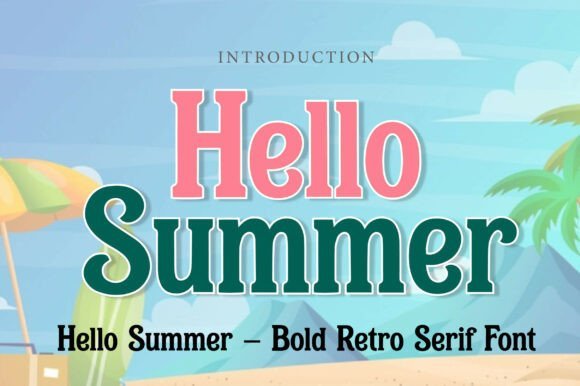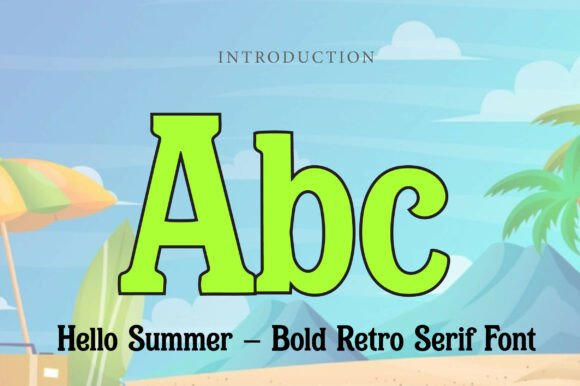
The Perfect Blend of Nostalgia and Vacation Vibes
As I scroll through my social media feeds during the summer months, I’m instantly transported back to a time when the sun-kissed beaches and laid-back vibes were the epitome of freedom. It’s during these moments that I crave the essence of a bygone era – the charm of vintage vacation posters, the carefree spirit of 1970s surf culture, and the warmth of a seaside getaway. And that’s exactly what the Hello Summer Font embodies.
This heavy display serif font is designed to evoke the feeling of a summer vacation, with thick, blocky letterforms and rounded slab serifs that scream ‘beachy vibes.’ Whether you’re designing a swimwear brand, creating invitations for a beach party, or crafting social media headers that scream ‘vacation mode,’ the Hello Summer Font is the perfect choice. For designers, it’s a valuable tool that can add a touch of nostalgia and whimsy to any project, making it a must-have for anyone looking to create a lasting impression.
Hello Summer Font Key Features
- Unique Characteristics: This font features a unique blend of modern and vintage elements, with a relaxed, casual feel that’s perfect for summer-themed designs.
Hello Summer Font Review
I recently had the chance to work with the “Hello Summer Font” and I have to say, it’s a fun and vibrant addition to any design project. ✨ The font’s playful and carefree feel is perfect for summer-themed designs, marketing campaigns, or any project that needs a boost of energy and optimism.
The font’s unique characteristics, such as its rounded edges and irregular shapes, add a touch of whimsy and personality to any text. ✨ The font’s bold and colorful style makes it an excellent choice for headings, titles, and other prominent text elements.
However, there are a few limitations to consider: ⚠️ The font may not be the best choice for formal or professional designs, as its playful style may come across as unprofessional. Additionally, the font’s irregular shapes and varied letterforms may not be suitable for small text sizes, as they may become difficult to read.
Overall, I think the “Hello Summer Font” is a great addition to any designer’s toolkit. While it may have some limitations, its unique style and playful feel make it a fantastic choice for summer-themed designs and other projects that need a burst of energy and optimism.
- Unique, playful style
- Vibrant and colorful
- Rounded edges and irregular shapes
- Perfect for summer-themed designs
- Not suitable for formal or professional designs
- May not be suitable for small text sizes
Hello Summer Font Practical Application Guide
Tips for Getting the Most Out of the Hello Summer Font
To get the most out of the Hello Summer Font, consider the following tips:
- Use the font for summer-themed designs, such as beach or pool party invitations.
- Combine the font with bright and bold colors to create a fun and playful look.
- Use the font in conjunction with other summer-themed graphics, such as palm trees or sunglasses.
The Hello Summer Font is commonly used for:
- Summer-themed invitations and